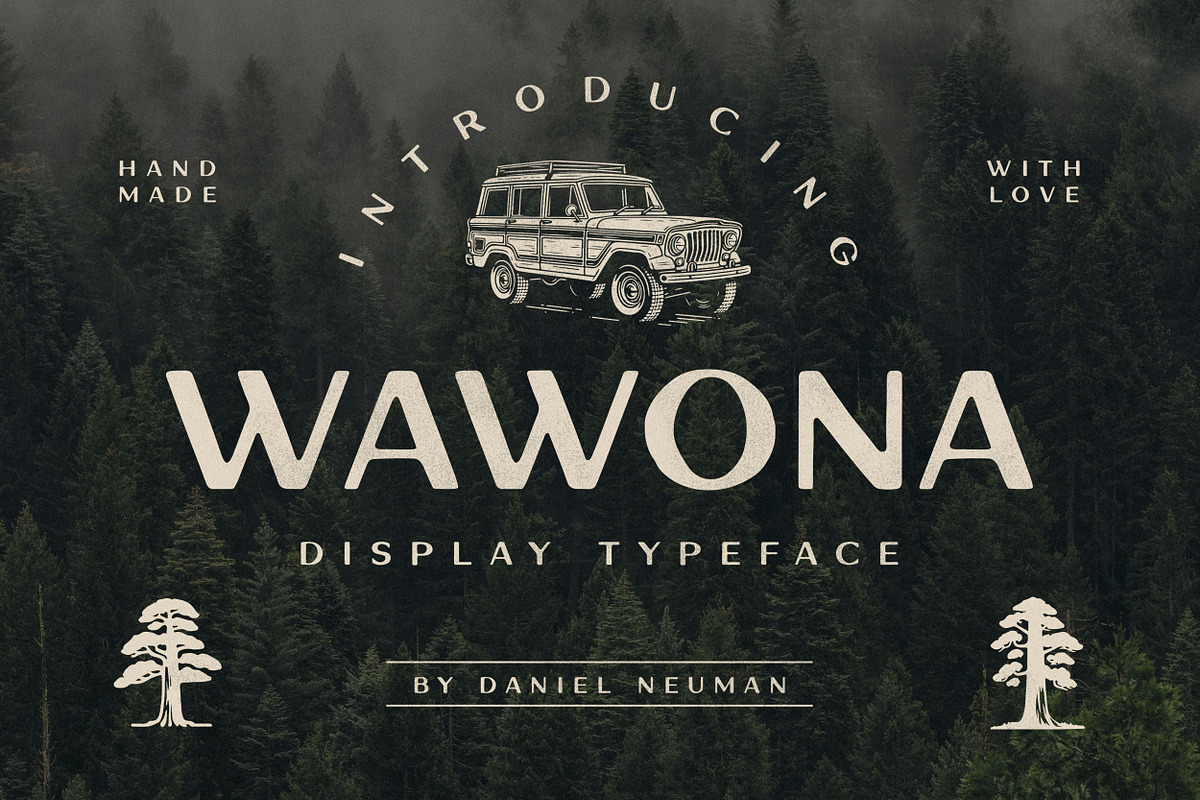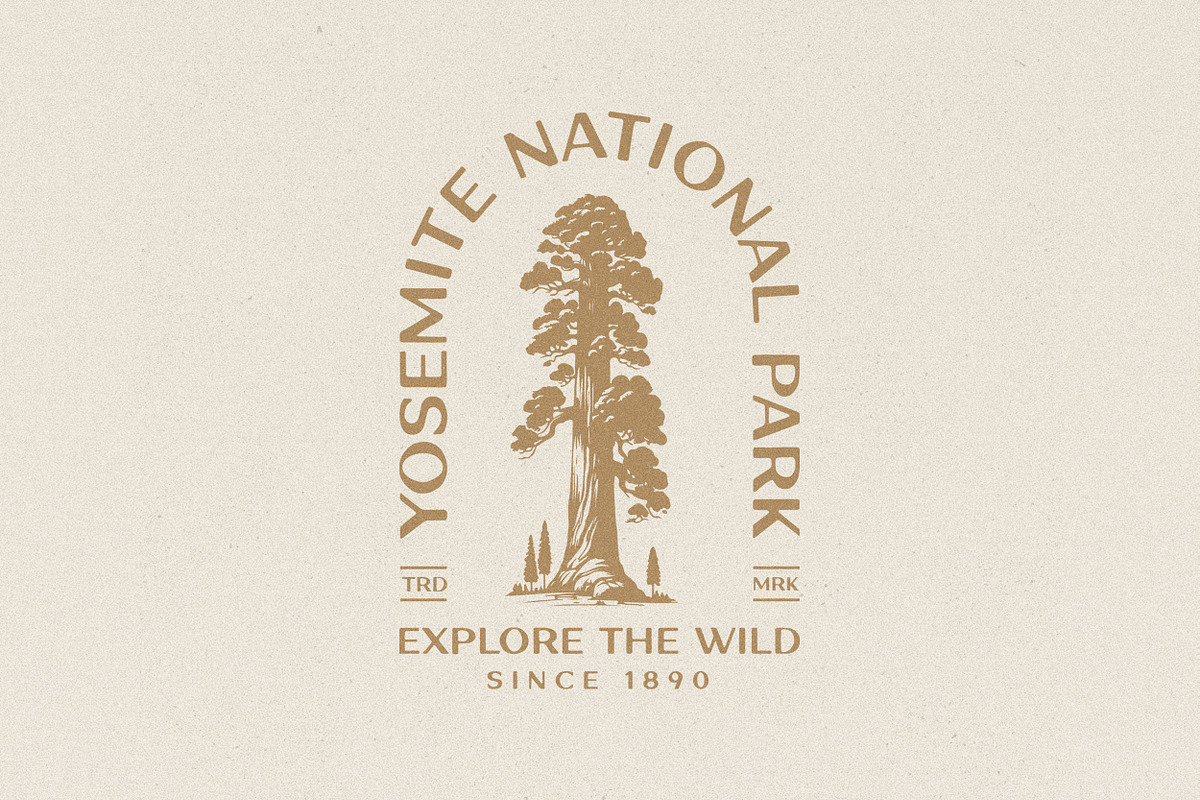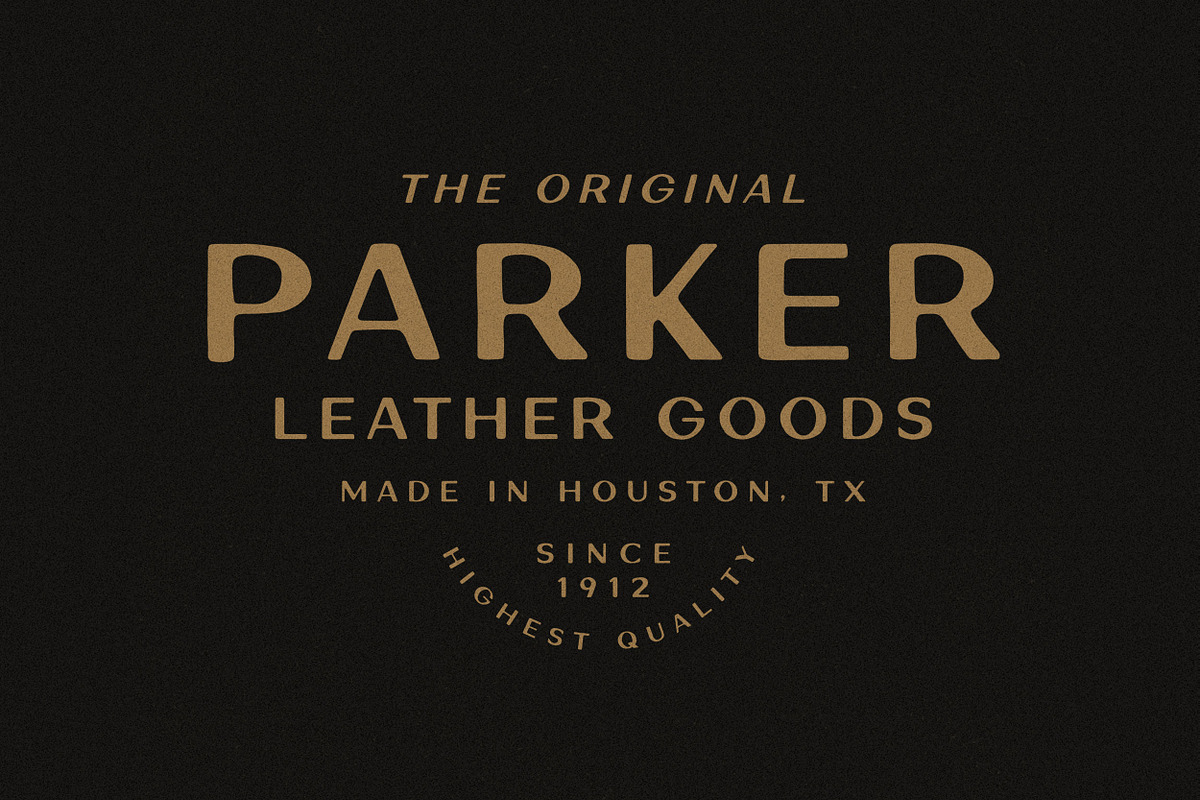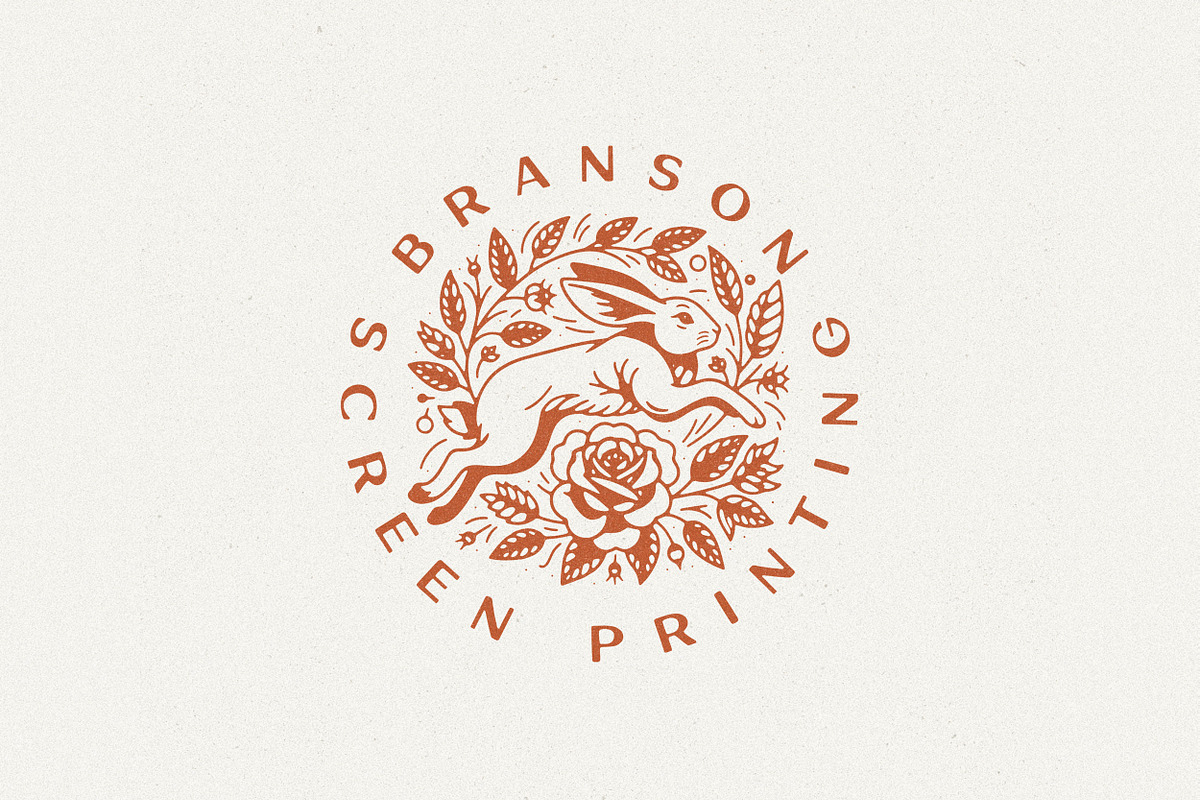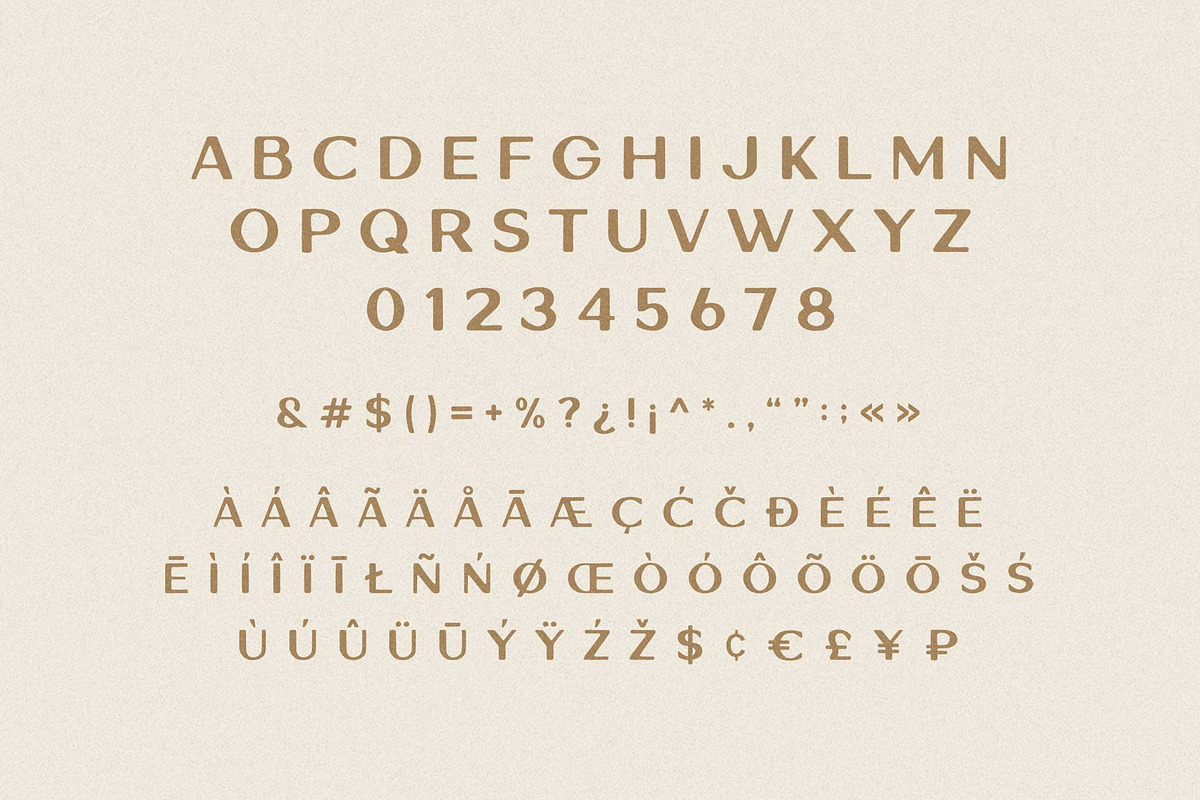
Wawona | Vintage Display Sans Serif
Inspired by vintage labels from the early 1900’s this font is soft around the edges and perfect for a variety of applications.
Contains upper-case A-Z, numbers 0-9 and basic punctuation. This font fully supports around 70 languages.